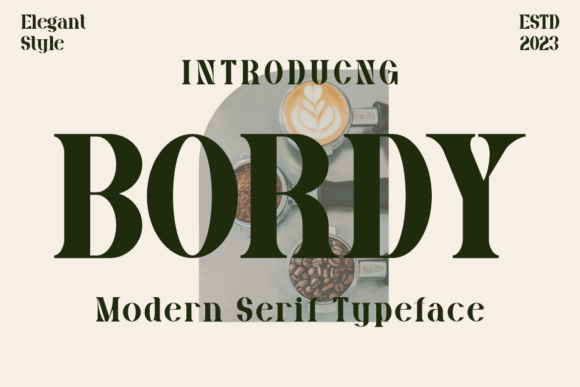
Introducing Bordy Font: A Typographic Masterpiece for the Discerning Designer
In a world saturated with fonts, Bordy stands out as a typographic gem—a meticulously crafted font family that embodies elegance and sharpness. Each letter is a testament to the font's unwavering commitment to balanced proportions and impeccable alignment, resulting in a visual masterpiece that elevates any project it adorns.
Embark on a Typographic Odyssey
With Bordy, your design projects will transcend the ordinary and enter the realm of the extraordinary. Its versatility extends beyond mere aesthetics, as it seamlessly adapts to a myriad of contexts, from print design and promotional materials to magazine layouts and beyond.
Crafted with Passion, Designed for Perfection
Our team of dedicated typographers poured their hearts and souls into creating Bordy, meticulously shaping each letterform to perfection. This unwavering dedication is evident in the font's flawless execution, where every curve and line harmonizes in perfect unison.
A Font for the Ages, a Legacy in the Making
Bordy is not merely a font; it's a legacy waiting to be written. Its timeless design transcends fleeting trends, ensuring that your projects will retain their allure for years to come. With Bordy, you'll leave an indelible mark on the world of design, crafting masterpieces that stand the test of time.